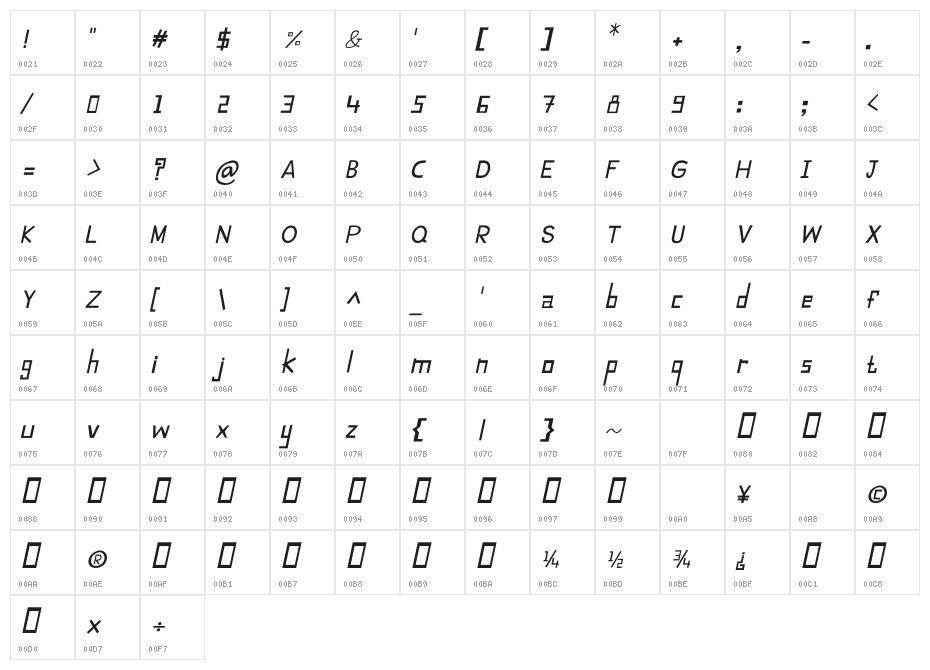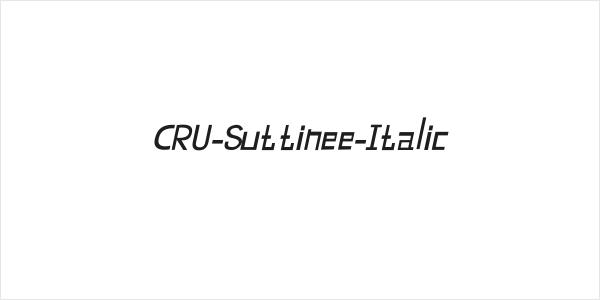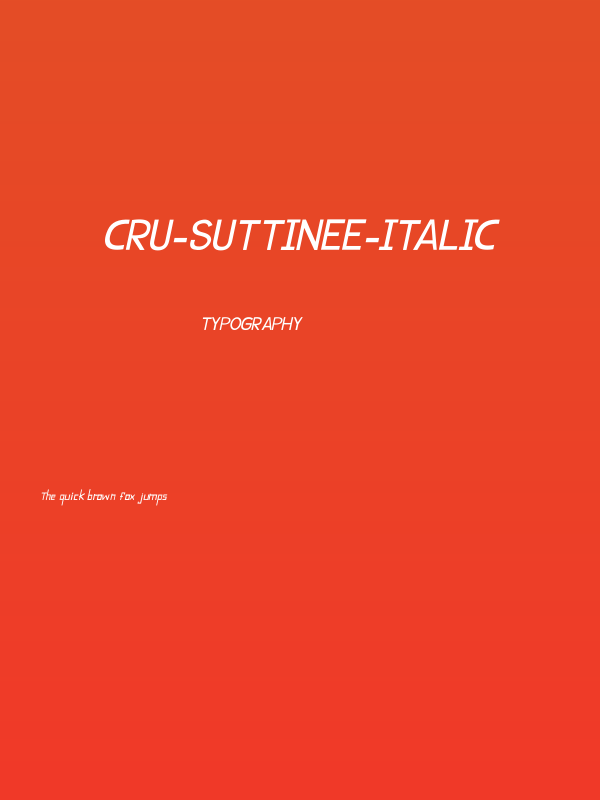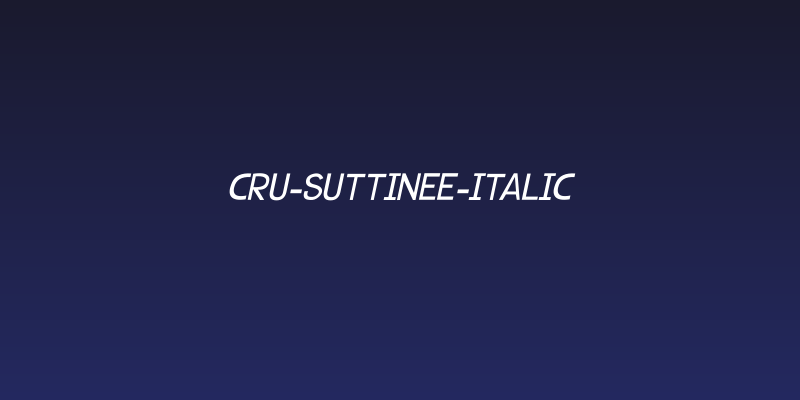
CRU-Suttinee-Italic Font
CRU-Suttinee-Italic Description
This font features a dynamic and modern italic style with a slight forward slant, giving it a sense of motion and elegance. The characters are well-defined with a consistent stroke width, providing a clean and professional appearance. The uppercase letters are bold and assertive, while the lowercase letters maintain a harmonious balance with a slightly more playful touch. The numerals are clear and easy to read, making them suitable for various applications. Special characters are distinct and well-integrated into the overall design, ensuring versatility in usage.
| Use Case | Headlines, Logos, Editorial design |
| Proposed Projects | Ideal for branding, advertising, and editorial design projects where a modern and elegant touch is desired. |